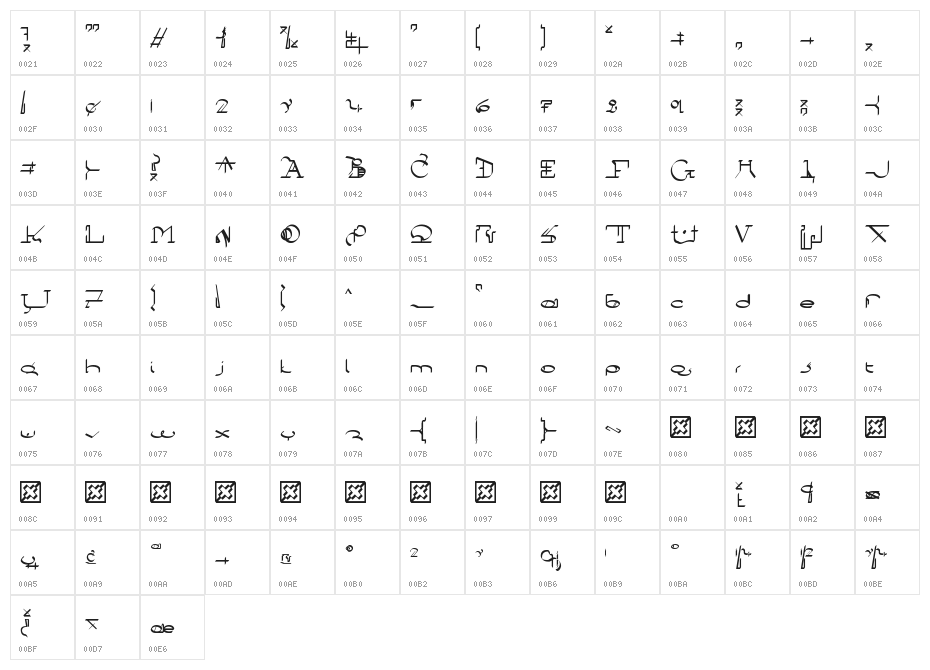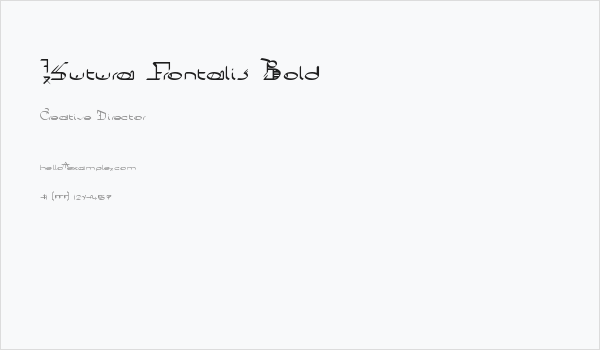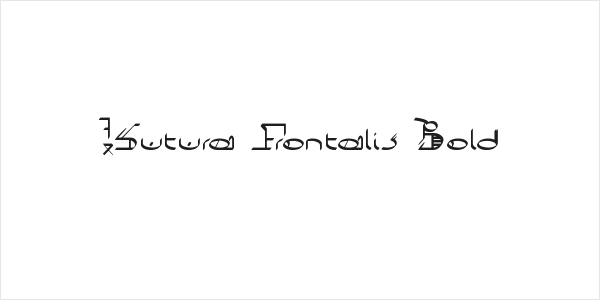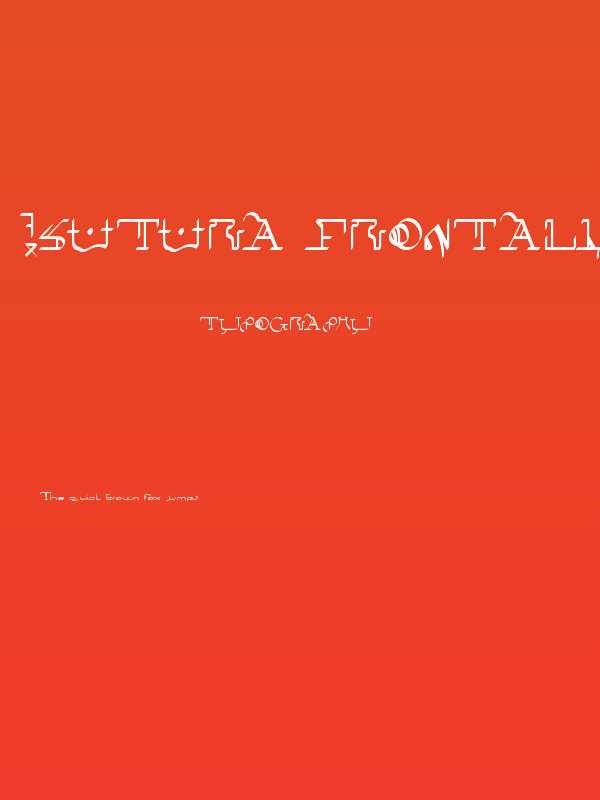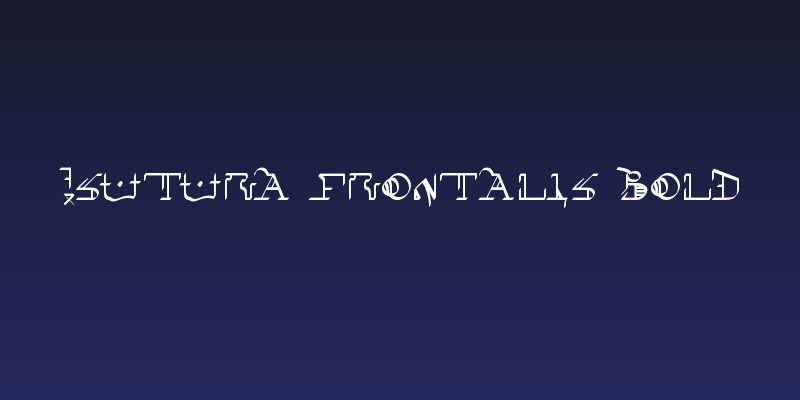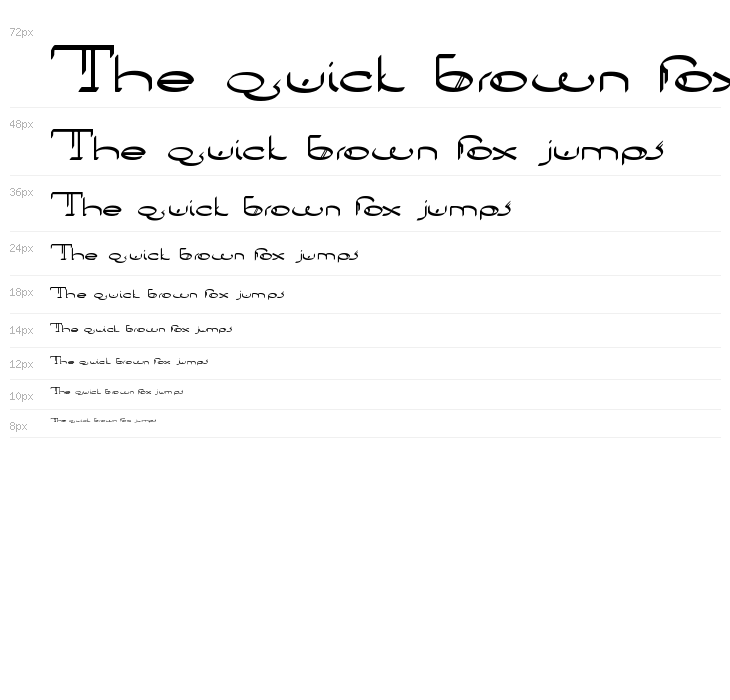
!Sutura Frontalis Bold Font
!Sutura Frontalis Bold Description
This font features a highly decorative and futuristic design, characterized by its unique and abstract letterforms. Each character is crafted with intricate details, incorporating sharp angles and curves that give it a distinct, avant-garde appearance. The uppercase and lowercase letters maintain a consistent style, with the uppercase being more elaborate. The numerals and special characters follow the same design principles, ensuring a cohesive look. This font's artistic flair makes it stand out, offering a bold statement in any design project.
| Proposed Projects | Ideal for sci-fi themed designs, video game graphics, movie posters, and branding for tech companies. |